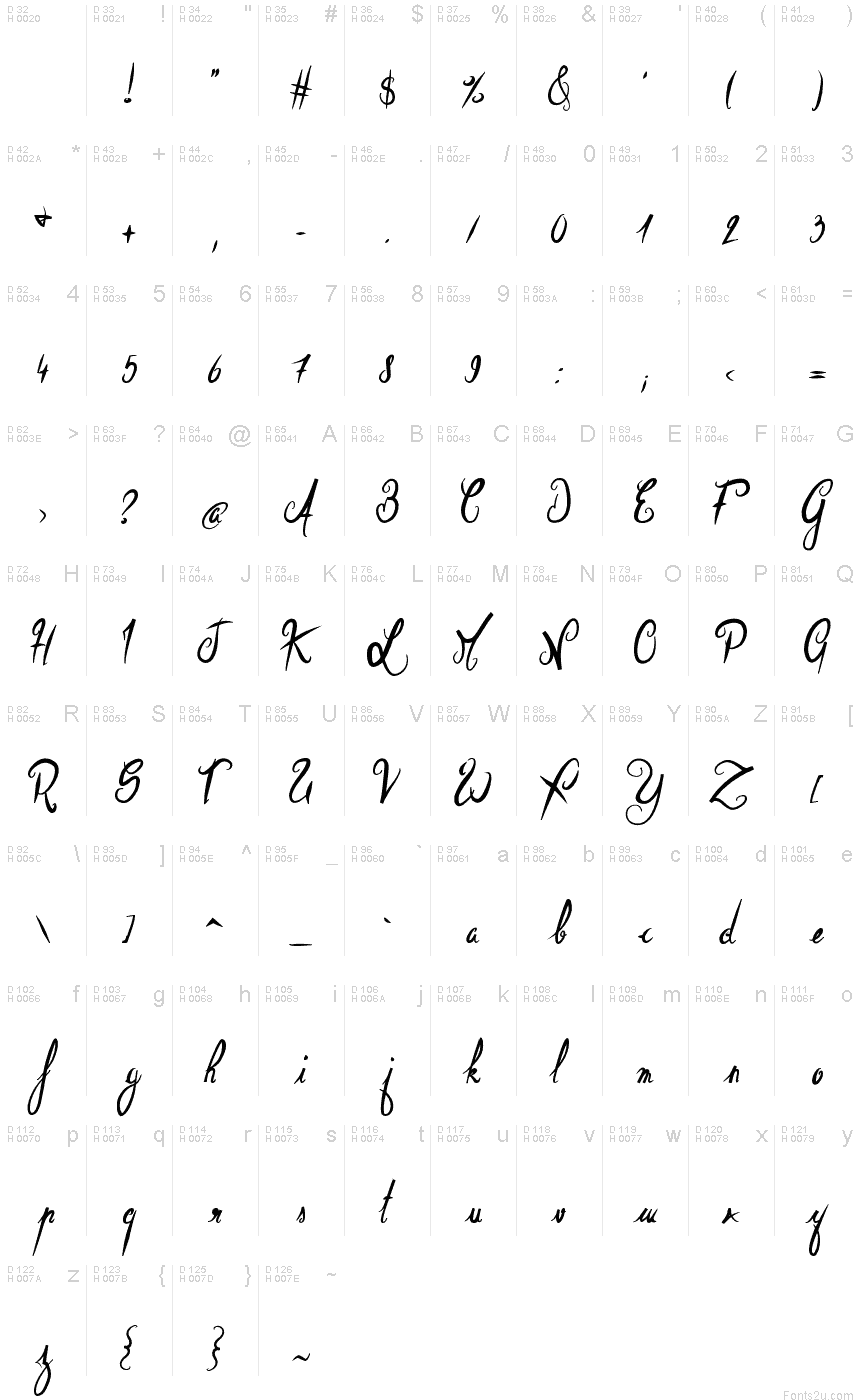
ElegantDragonBold
Elegant Dragon Bold by Nwardesign is a free calligraphic script with dramatic scale shifts and sweeping, oversized loops. Thick downstrokes narrow abruptly into hairline turns, giving the connected letters a lively, theatrical silhouette.
Fashion labels and beauty brands can use its extravagant movement to suggest glamour and a personal signature. It also suits wedding invitations, album artwork, and event posters whose imagery can echo the long curls and flourishes. Its most convincing role is in a logo or title where a few words can become the central decorative gesture.